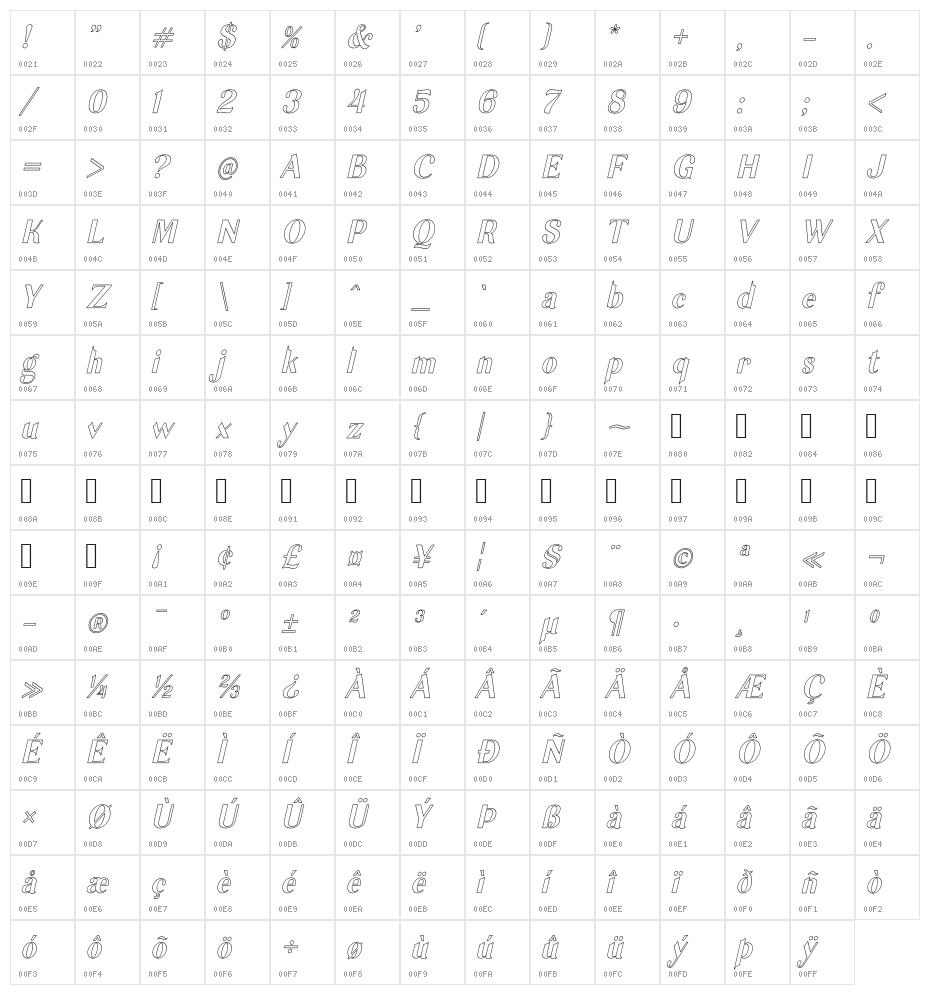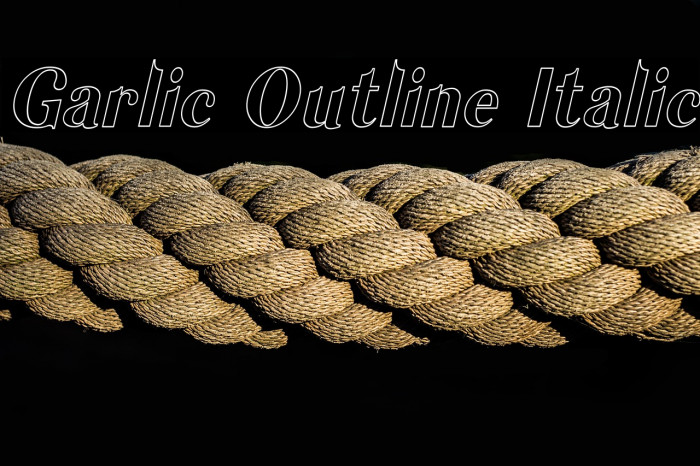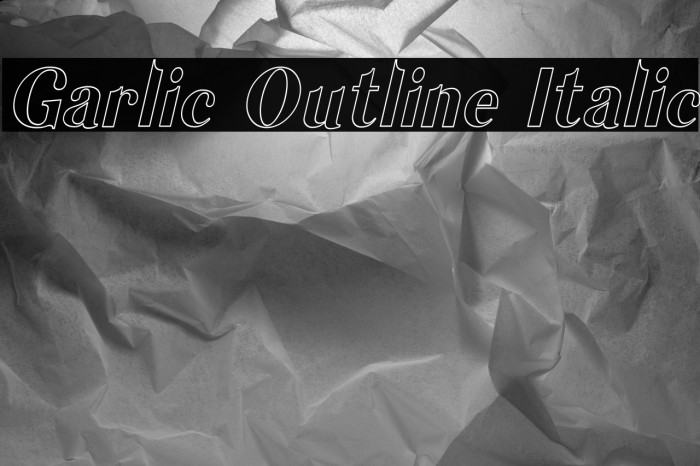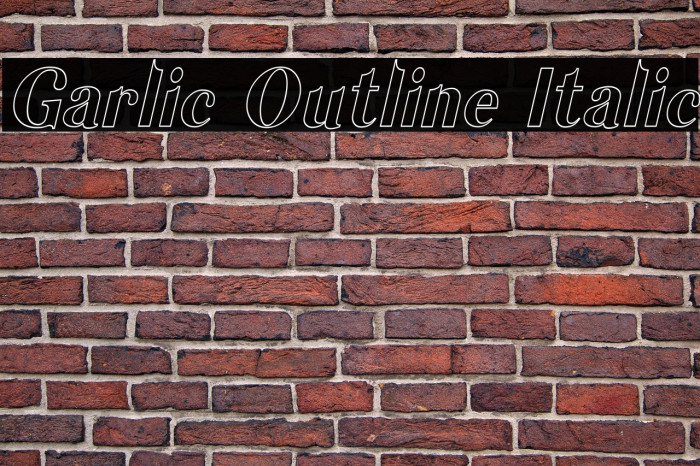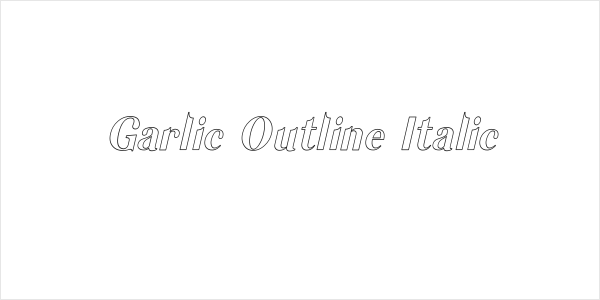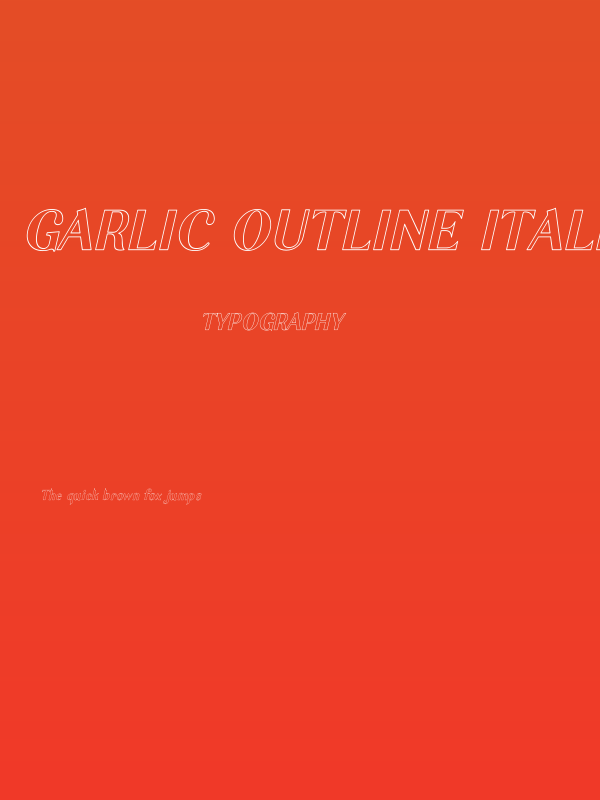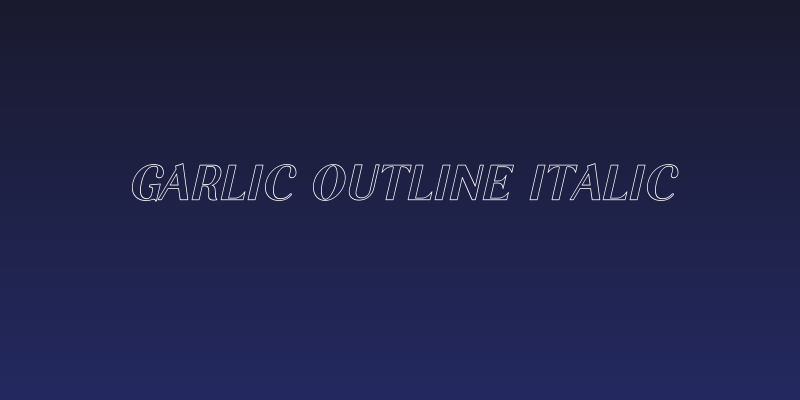
Garlic Outline Italic Font
Garlic Outline Italic Description
This font features an elegant and modern outline style with a distinct italic slant, giving it a dynamic and sophisticated appearance. The characters are outlined, providing a unique visual effect that stands out in any design. The uppercase and lowercase letters maintain a consistent style, with smooth curves and sharp angles that enhance readability. The numerals and special characters are designed to match the overall aesthetic, ensuring a cohesive look across all text elements. This font's outline design makes it ideal for projects that require a touch of creativity and flair.